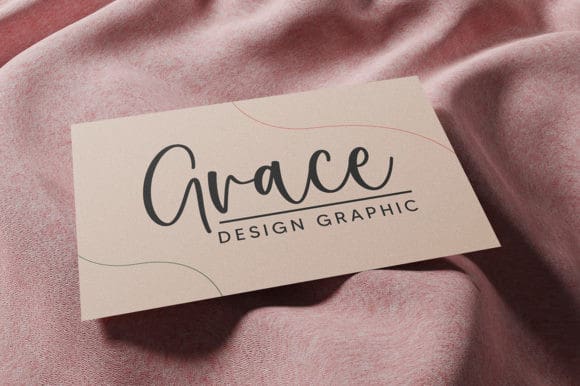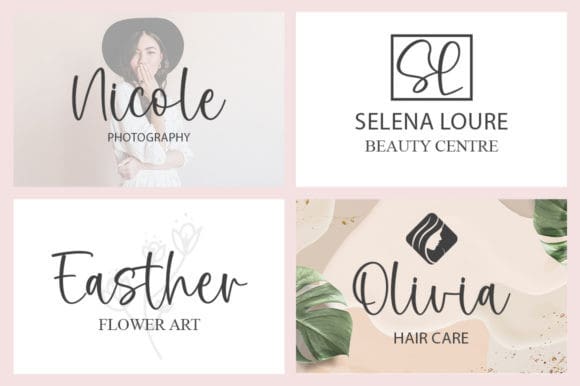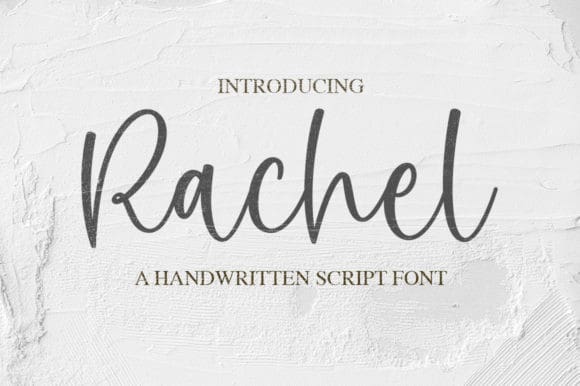
Rachel Script Typeface
Rachel Script Typeface is a delicate, elegant, and flowing handwritten font. It has beautiful and well-balanced characters and as a result, it matches a wide pool of designs.